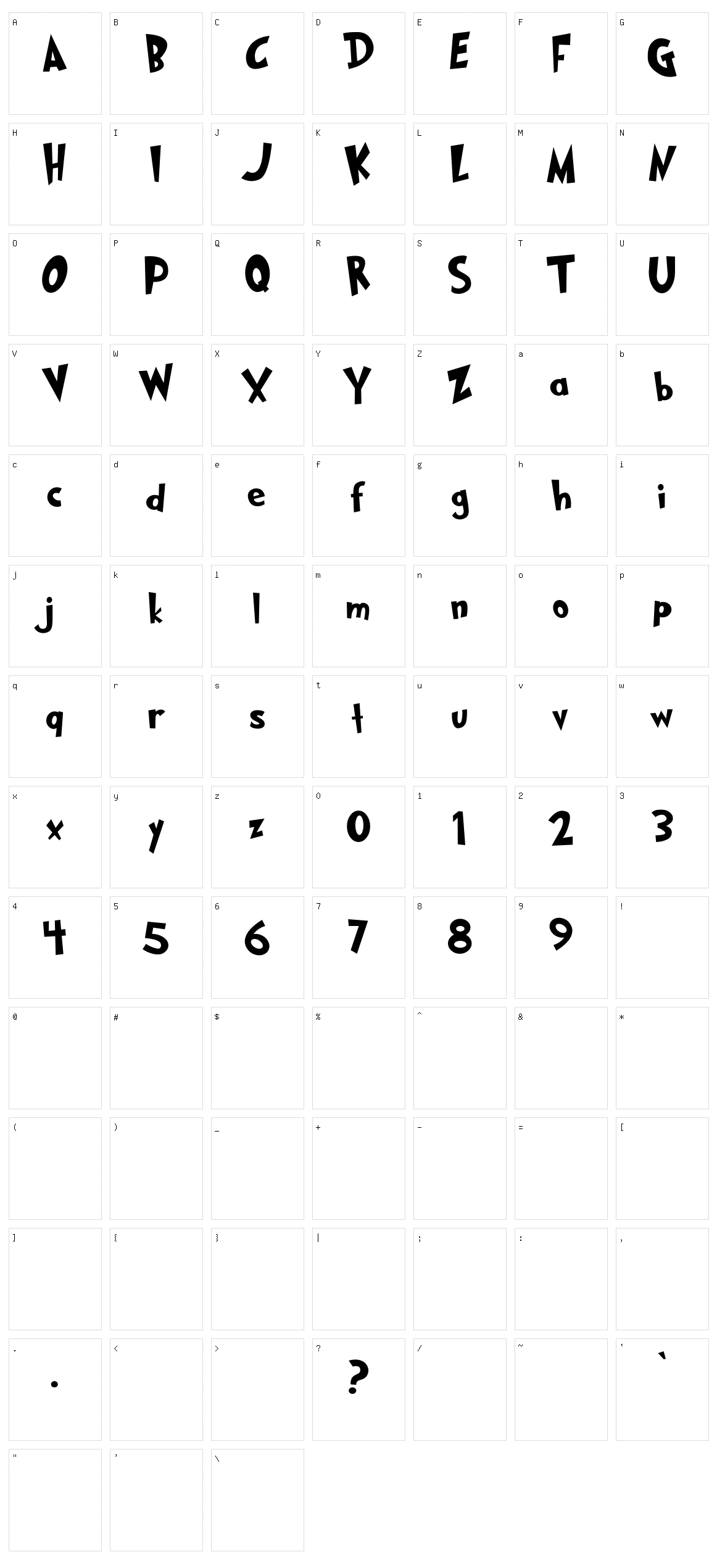
Thanks for taking a look! Grinched was my most popular font by far and after several years in need of some updating. After some tweaking here and there the decision was made
to completely redraw it keeping several of the original characters intact. 80% of the uppercase letters made their way back into the newer version while nearly all of the lowercase were
replaced and redrawn completely. Each letter was carefully re-edited for maximum sharpness and magnification at large sizes. Cyrillic characters were added for Russian and Ukranian users.
Basic and extended latin, numbers, punctuation, European accents, diacritics, Cyrillic, and kerning are included in the full version. Basic Latin, numbers,
and limited punctuation are included in the free demo.